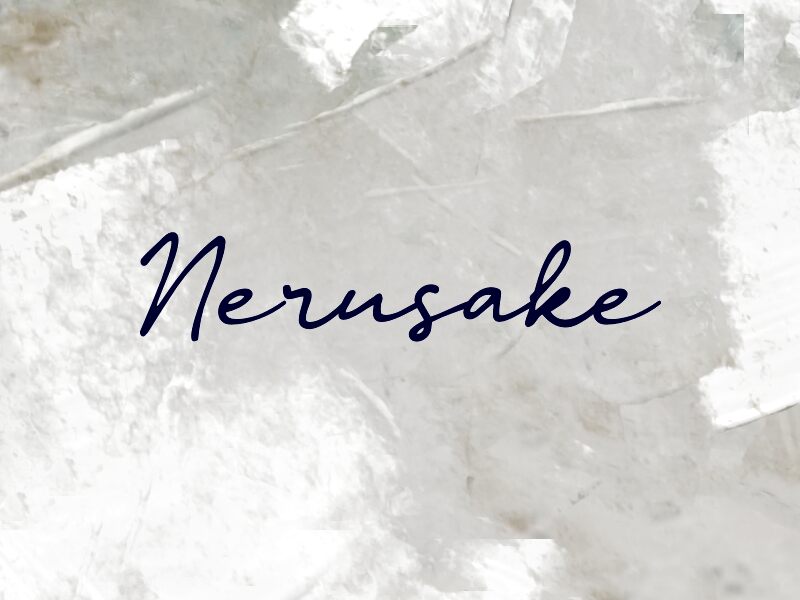
Nerusake font by wep is a free font featuring a casual minimal handwritten style suitable for impactful branding and presentations. This font stands out with its careful style, balance, and well-coordinated elements. Some featured letters include a/s & n/s even though all of them exhibit a modern & unique design.
Nerusake is a stylish and modern free font, perfect for a variety of design projects. Featuring elegant lines and a unique character set, this font enhances the aesthetic of any creative work. Its versatility makes it suitable for branding, invitations, posters, and other graphic designs.